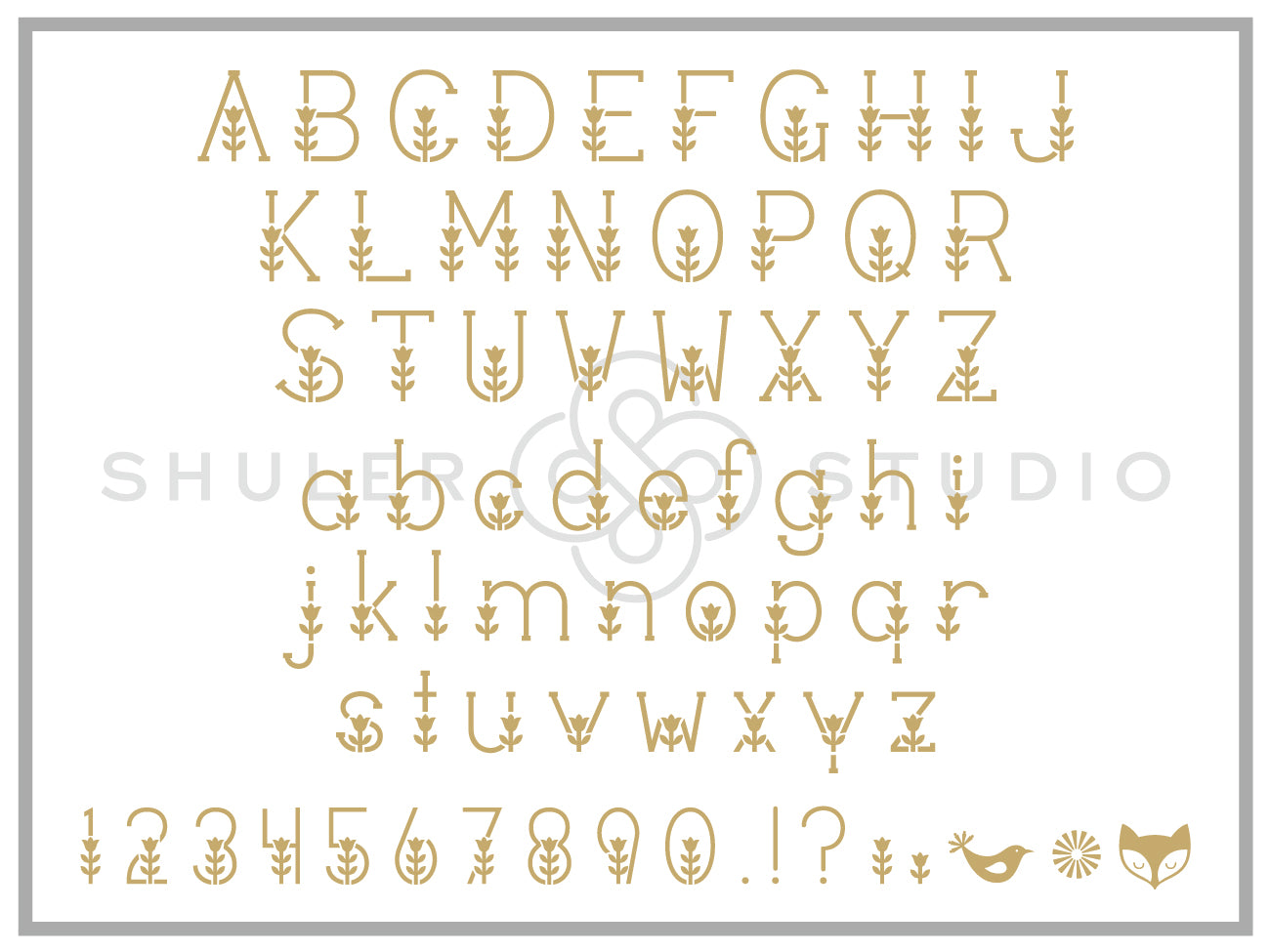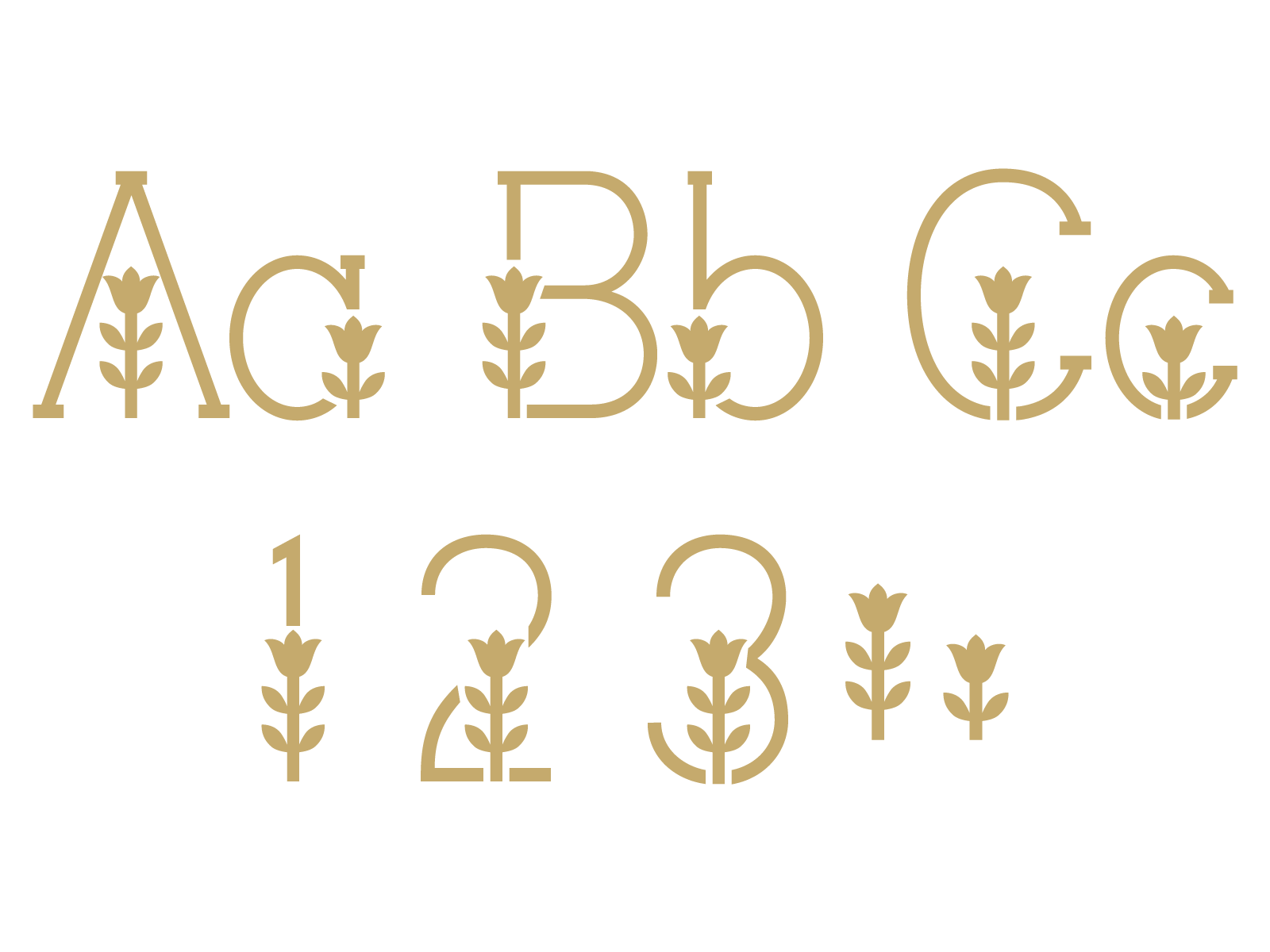
Single Scandi Font for Print
Our Single Scandi Font is a beautiful collection of 26 uppercase, 26 lowercase, numbers 0-9, and 5 additional designs featuring a Scandinavian-inspired motif.